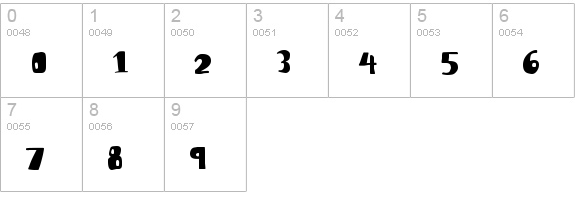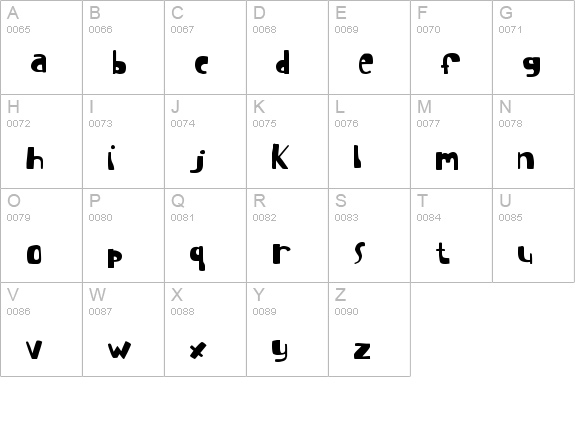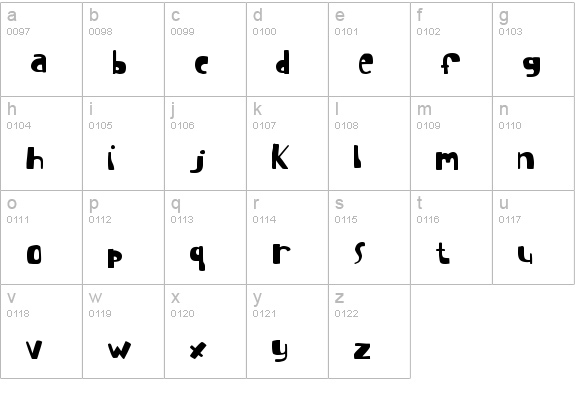
I suck at golf Font Details
Introducing the incredible "I Suck at Golf" font, a playful and quirky typeface that brings a touch of humor to your design projects. This font is perfect for adding a lighthearted and whimsical element to any golf-related content, whether it be for a sports event, a golf-themed party invitation, or even a humorous t-shirt design. With its bold and slightly irregular letterforms, the "I Suck at Golf" font captures the essence of the game with its endearing imperfections. Each character is carefully crafted to resemble the unpredictable nature of a golfer's swing, creating a unique and distinctive look that is sure to stand out. But what's even better is that this fantastic font is available for free! Yes, you heard it right. You can easily download the "I Suck at Golf" font for free at FontsMarket.com. Now, you don't have to break the bank to add a touch of fun to your golf-themed projects. Simply visit FontsMarket.com, find the font, and download it with just a few clicks. Whether you're a professional designer looking to add a playful touch to your golf-related designs or simply a golf enthusiast wanting to create some personalized golf-themed content, the "I Suck at Golf" font is the perfect choice. So don't miss out on this amazing opportunity to get your hands on this free font. Visit FontsMarket.com today and let your creativity soar with the "I Suck at Golf" font!